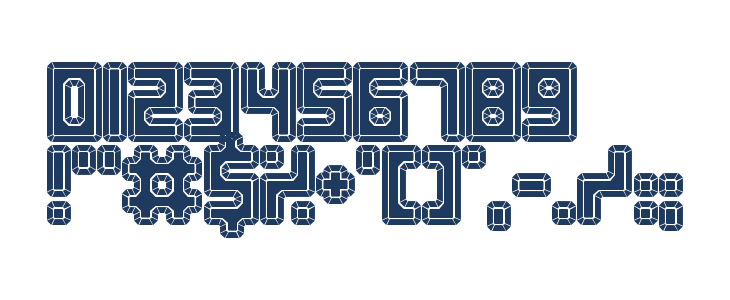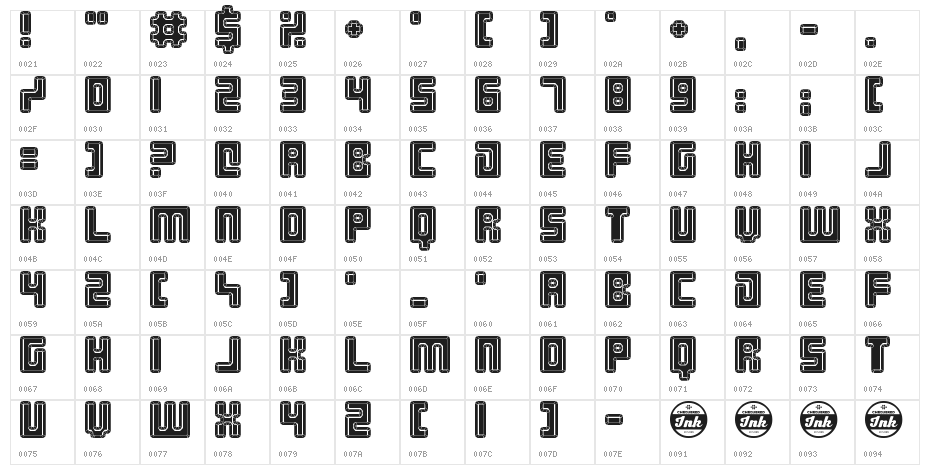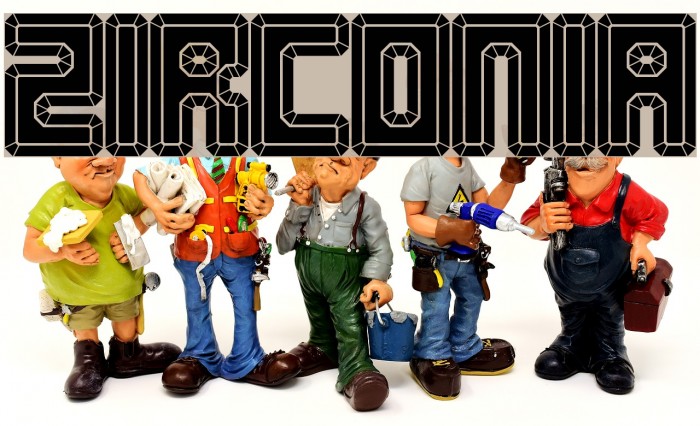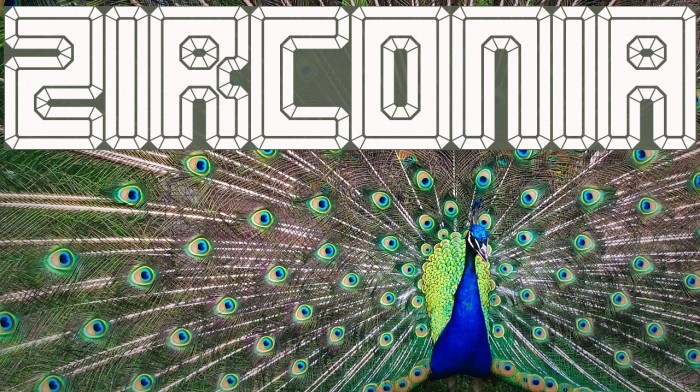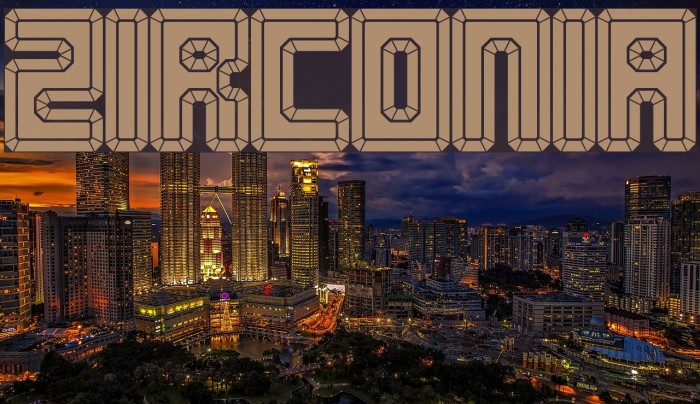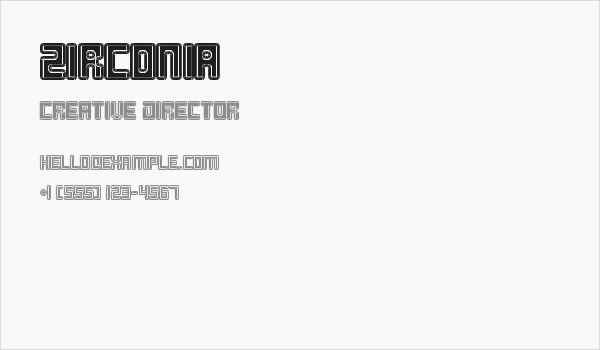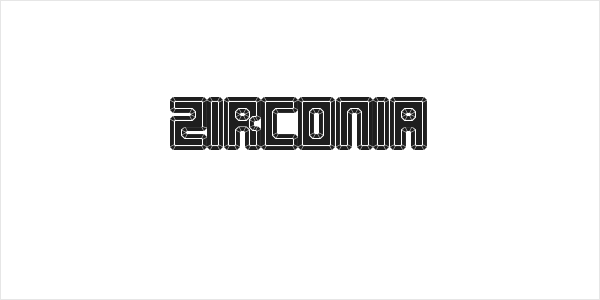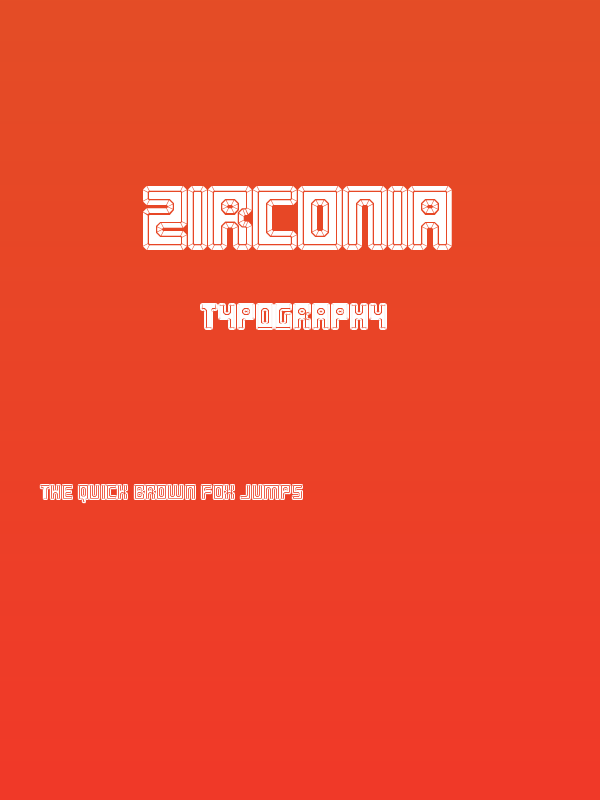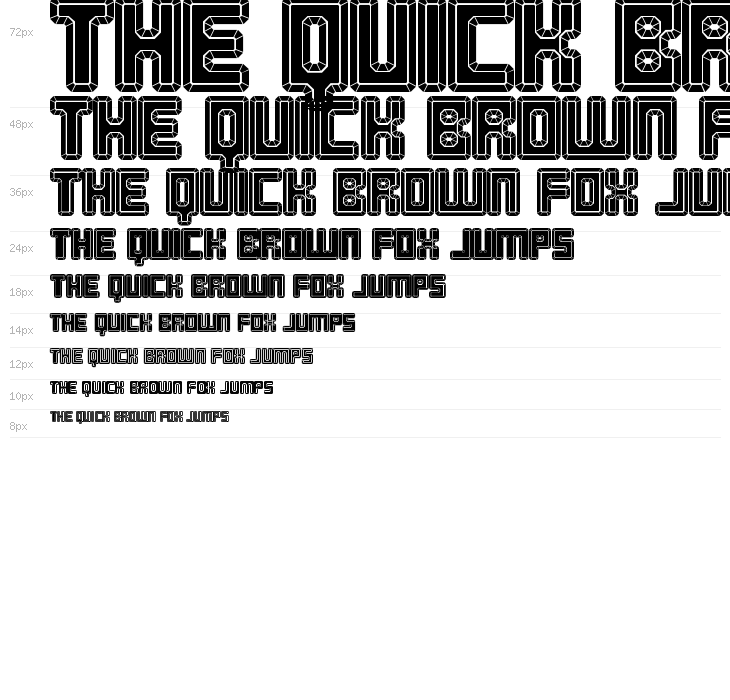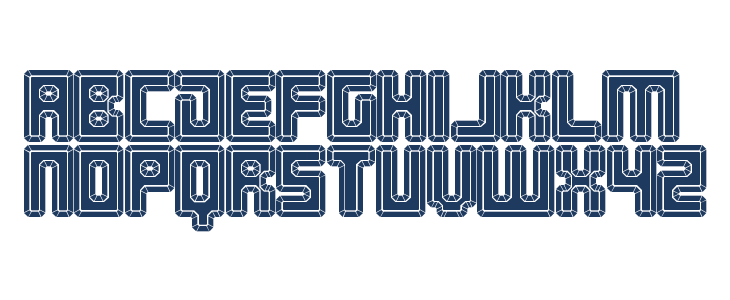
Zirconia Font
Zirconia Description
This font features a bold, geometric design with a futuristic and industrial aesthetic. The characters are constructed with thick, block-like shapes, incorporating angular lines and sharp edges. Each letter and number is outlined with a double line, creating a sense of depth and dimension. The font's unique style is further enhanced by the inclusion of small, circular cutouts at the intersections of lines, adding a mechanical and intricate detail. This design is consistent across uppercase, lowercase, numbers, and special characters, maintaining a cohesive and striking appearance.
| Overall Style | Futuristic, Industrial |
| Proposed Projects | Ideal for technology branding, video game titles, sci-fi movie posters, and industrial-themed designs. |